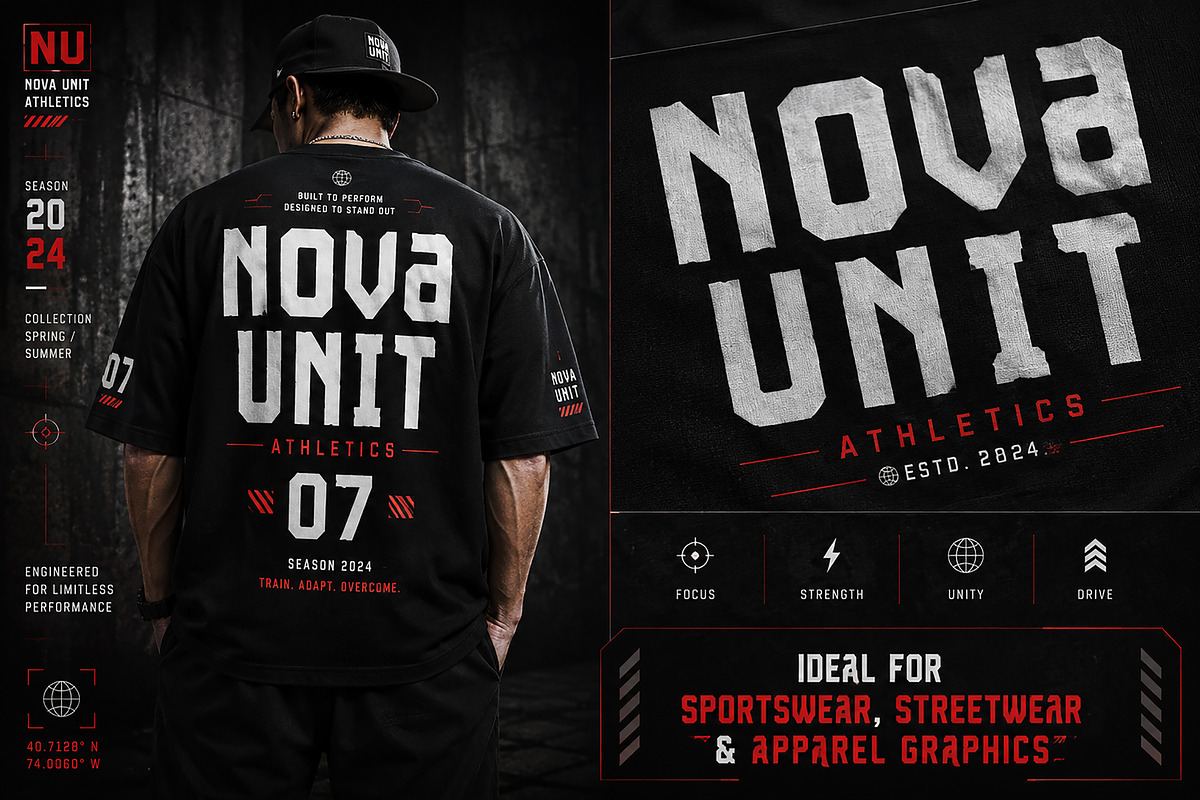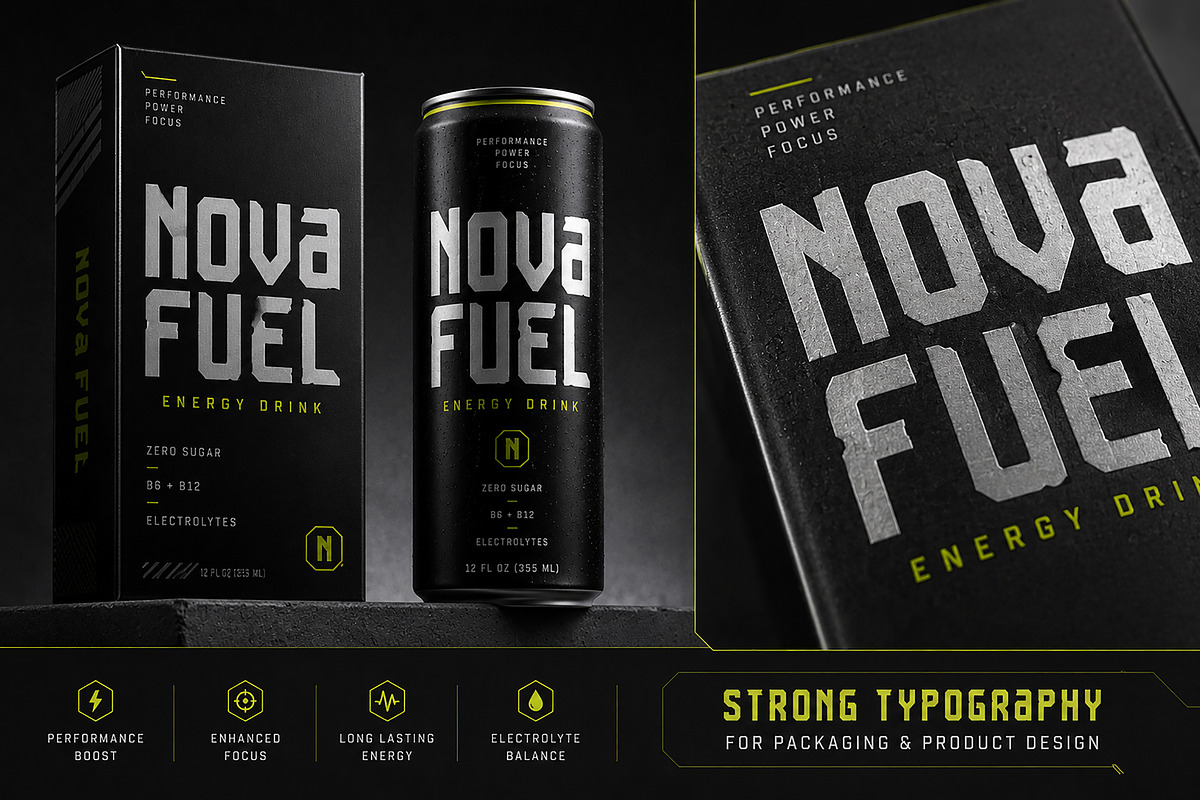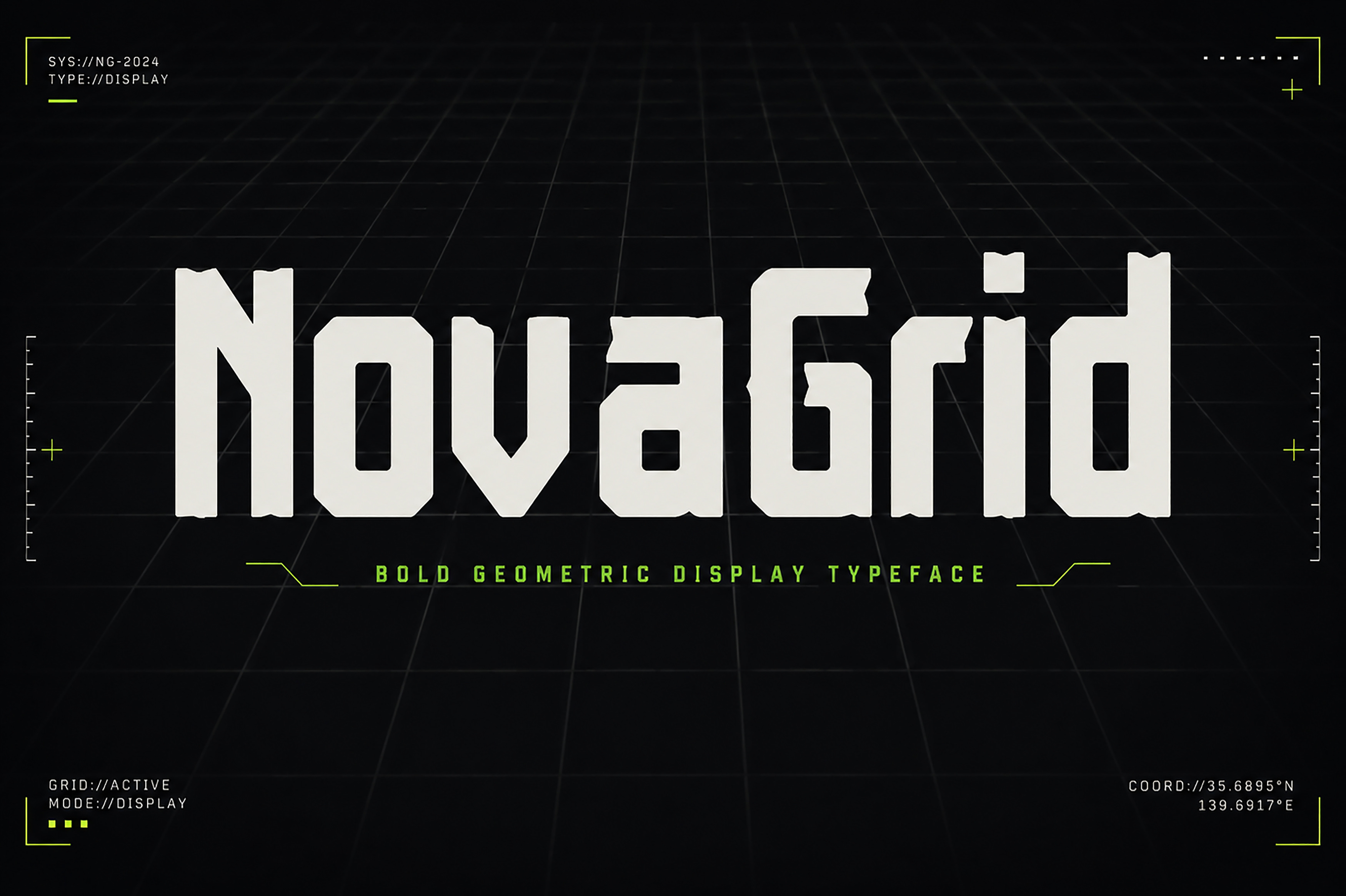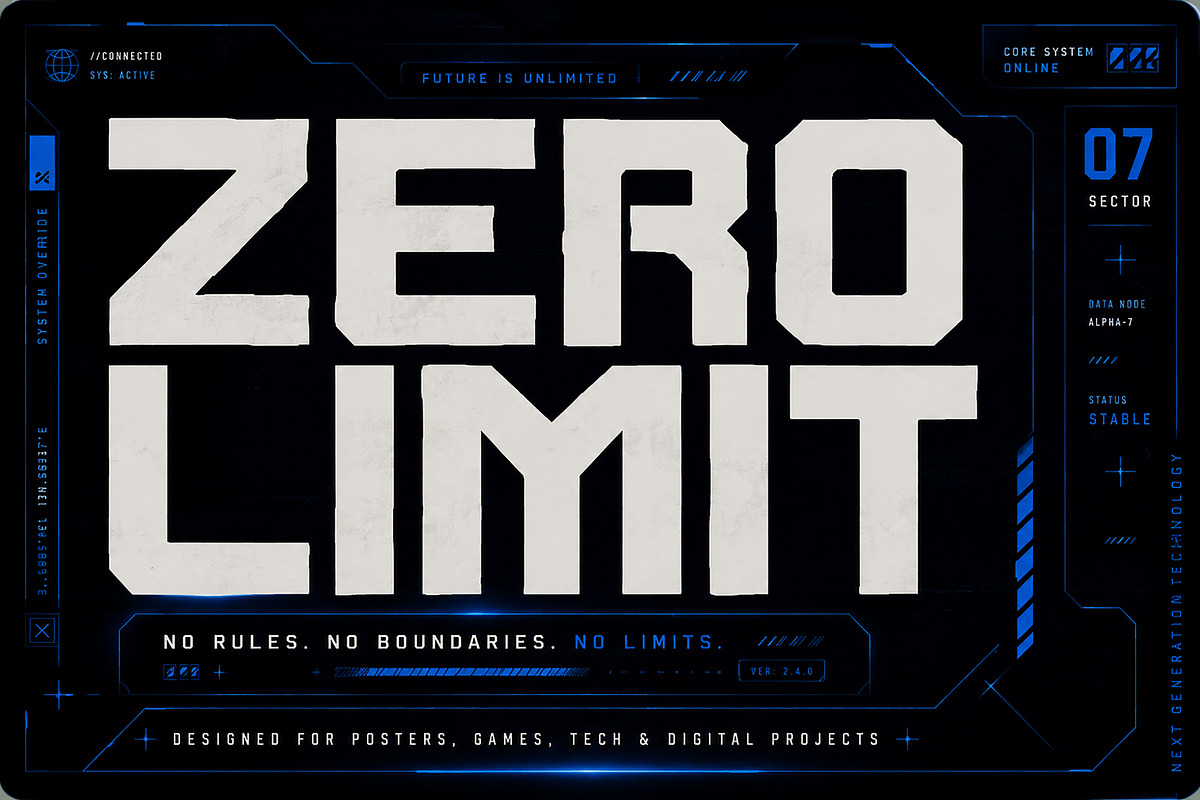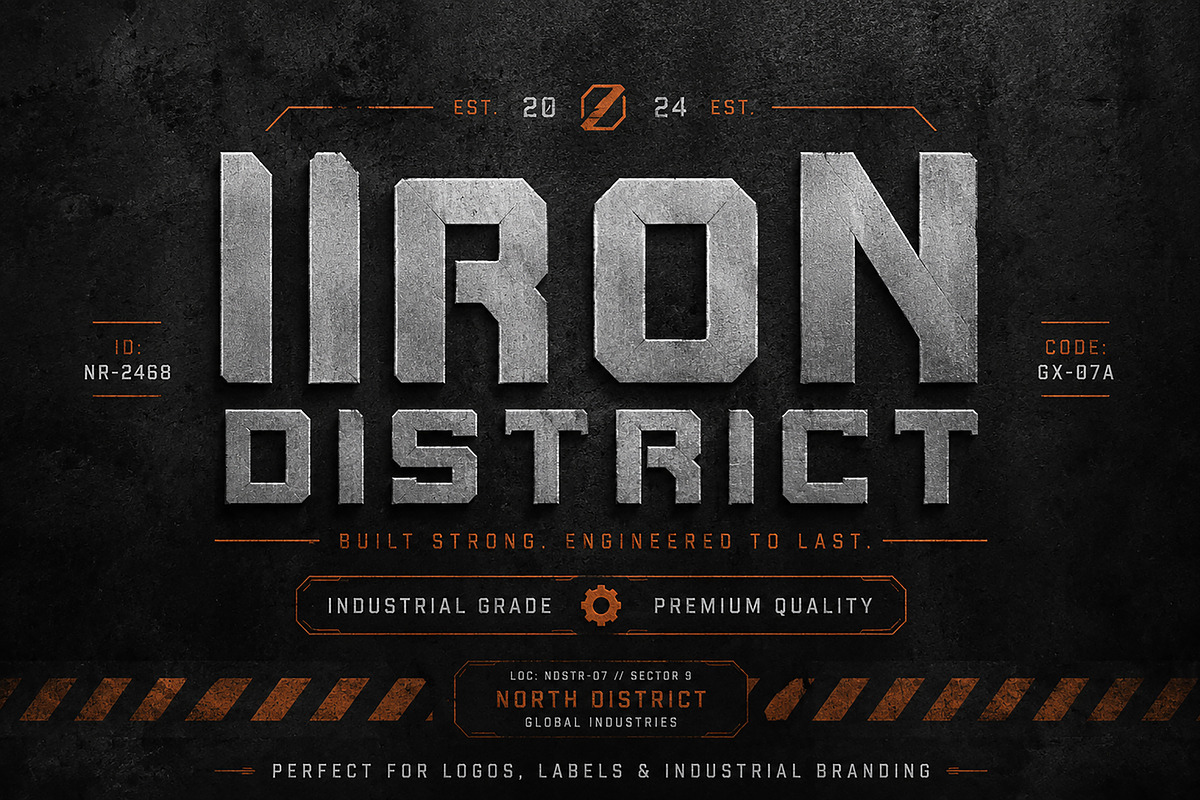
NovaGrid | Bold Display Font
NovaGrid | Bold Geometric Display Font
Description
NovaGrid is a bold geometric display font crafted for designers who want to create strong, futuristic, and high-impact visuals. With its sharp edges, industrial-inspired structure, and modern geometric construction, NovaGrid delivers a confident and powerful personality that instantly grabs attention.
Designed for creative professionals, this typeface works perfectly for branding, gaming, technology, streetwear, posters, packaging, sports graphics, logos, and digital media. Whether you're building a cyber-inspired identity or a modern industrial brand, NovaGrid helps your typography stand out with clean, bold precision.
Its distinctive letterforms combine futuristic aesthetics with excellent readability, making it an ideal choice for both print and digital projects.
Logos & Brand Identity
Posters & Headlines
Gaming Graphics
Esports Branding
Streetwear Designs
Apparel Graphics
Technology Branding
YouTube Thumbnails
Album Covers
Event Posters
Labels & Stickers
Creative Advertising
Bold Geometric Display Style
Modern Industrial Design
Futuristic Letterforms
Strong Visual Impact
Uppercase Characters
Why You'll Love NovaGrid
NovaGrid is built for projects that demand bold typography and modern aesthetics. Its clean geometric construction and industrial character make it a versatile choice for designers looking to create memorable visual identities across both digital and print media.